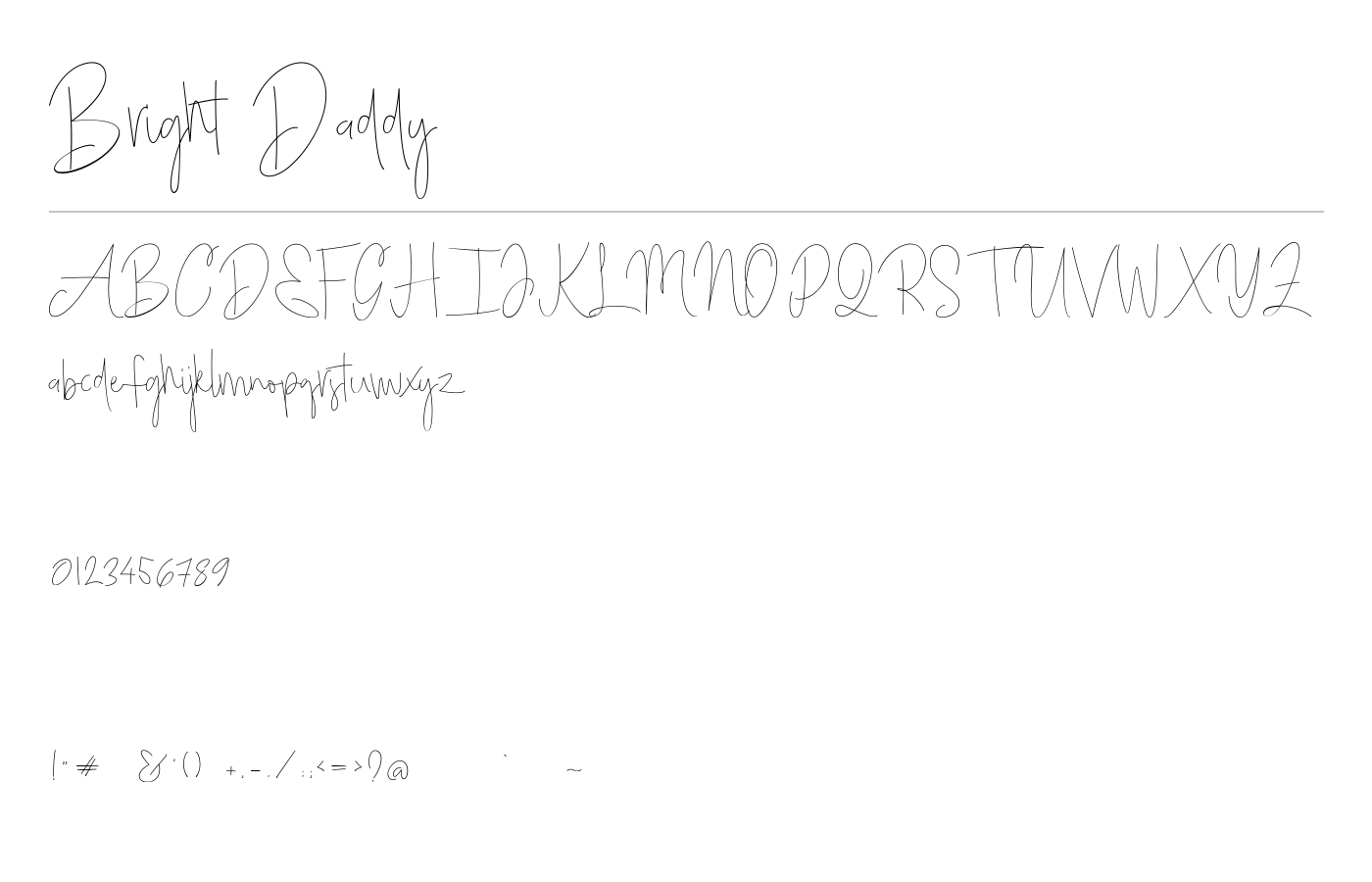
Bright Daddy is a delicate, thin script font with a playful and airy feel, characterized by its tall, slender letterforms and whimsical loops. Its handwritten style exudes a casual, friendly personality, making it ideal for lighthearted branding, invitations, or artistic projects where an elegant yet informal touch is desired. This font works best in headlines or accents where its unique charm and fine details can truly stand out.
Bright Daddy Font
About Bright Daddy Font
| Font family | Bright Daddy Font |
| Designer | thirtypath |